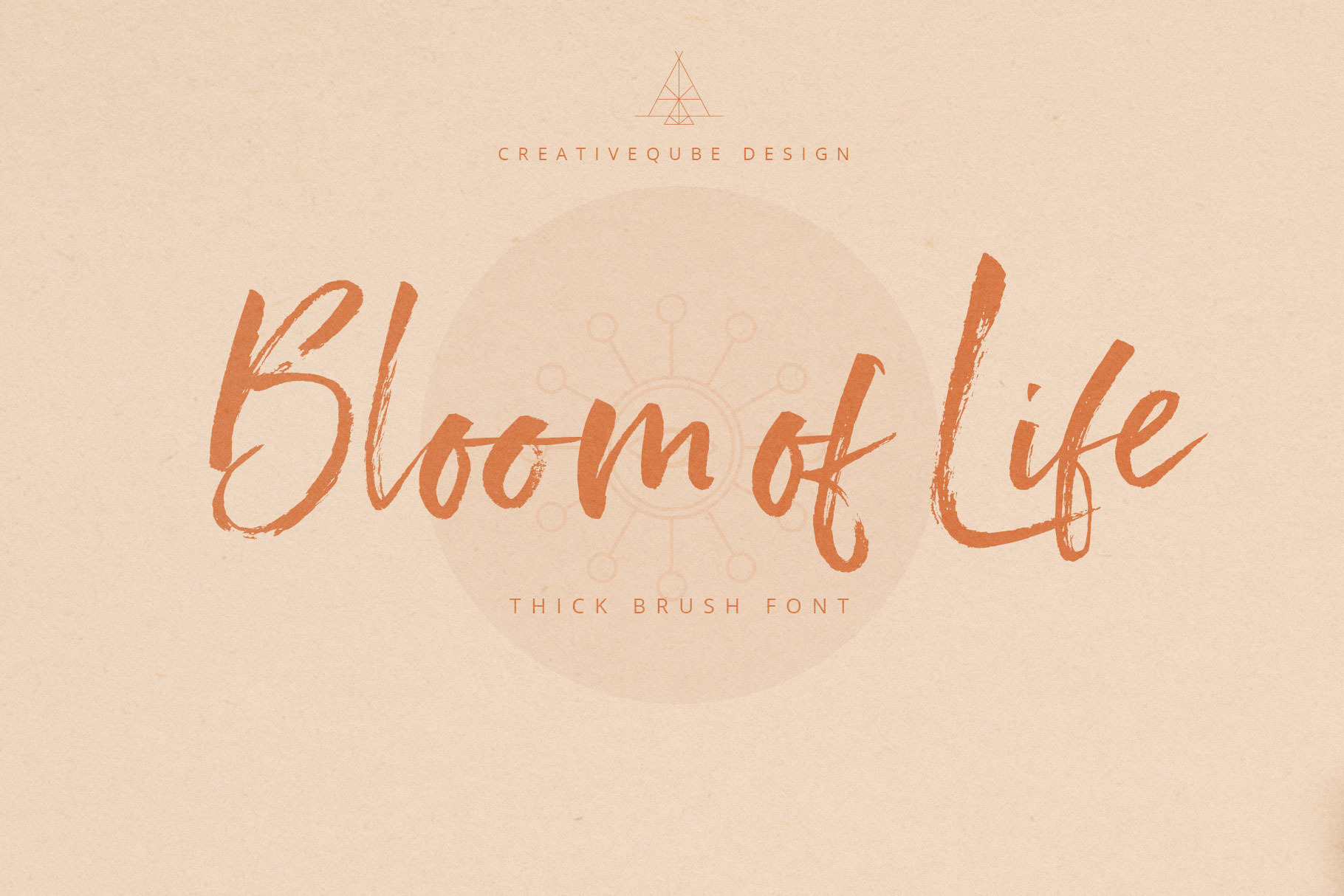
Bloom of Life Script font
Introducing Bloom of Life Script Font. This relaxed natural hand painted brush font is fun and stylish at the same time.
The script includes a full set of lowercase alternates to create that awesome relaxed natural hand written look.